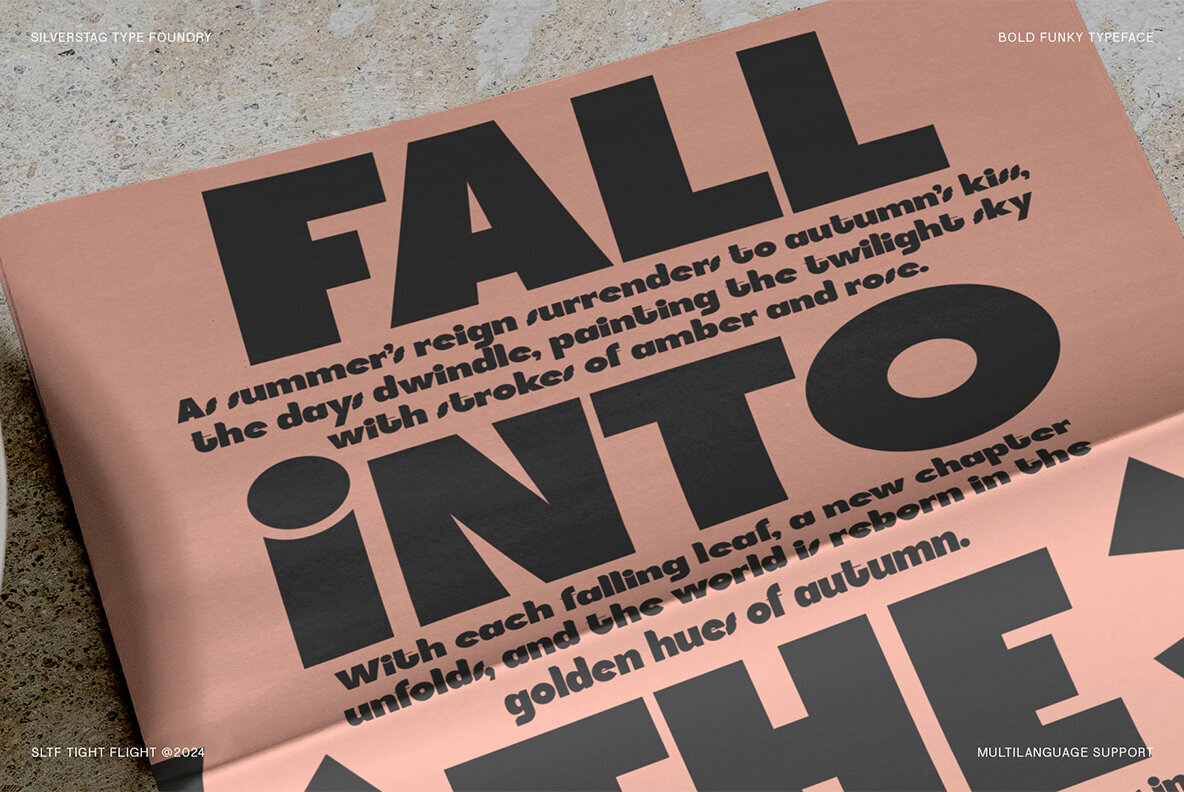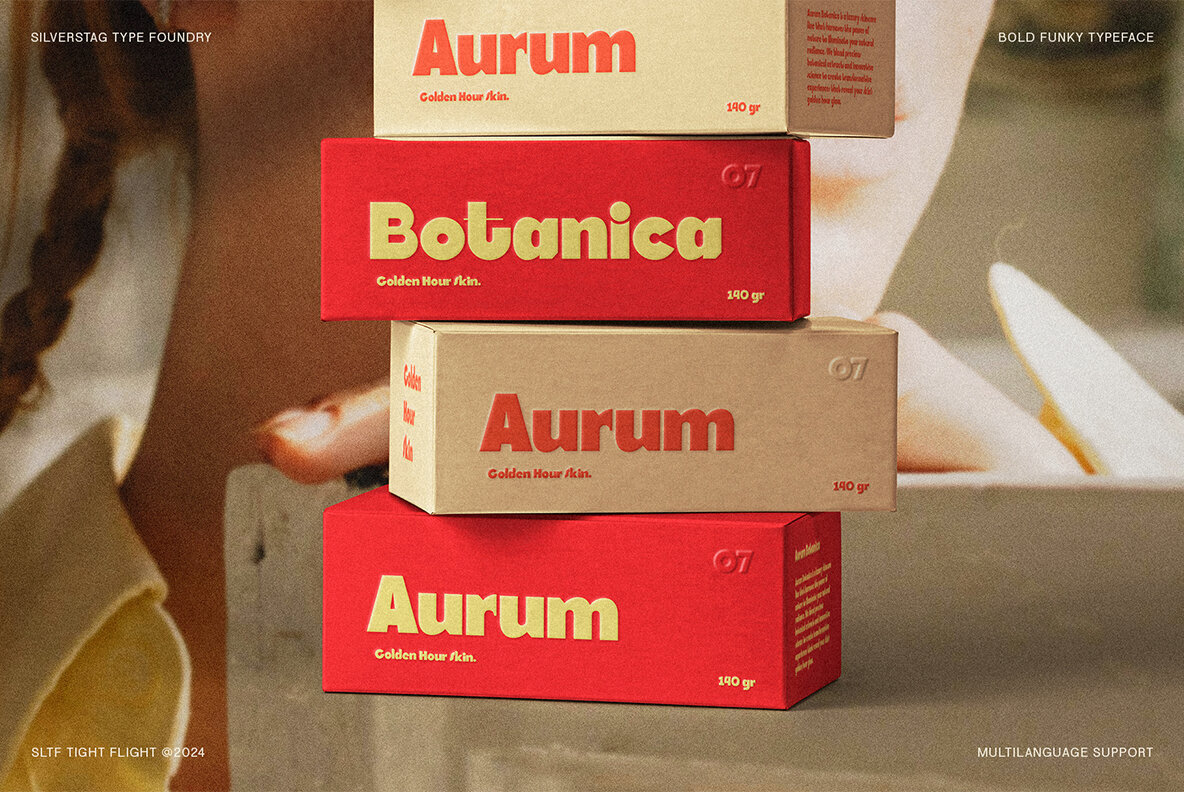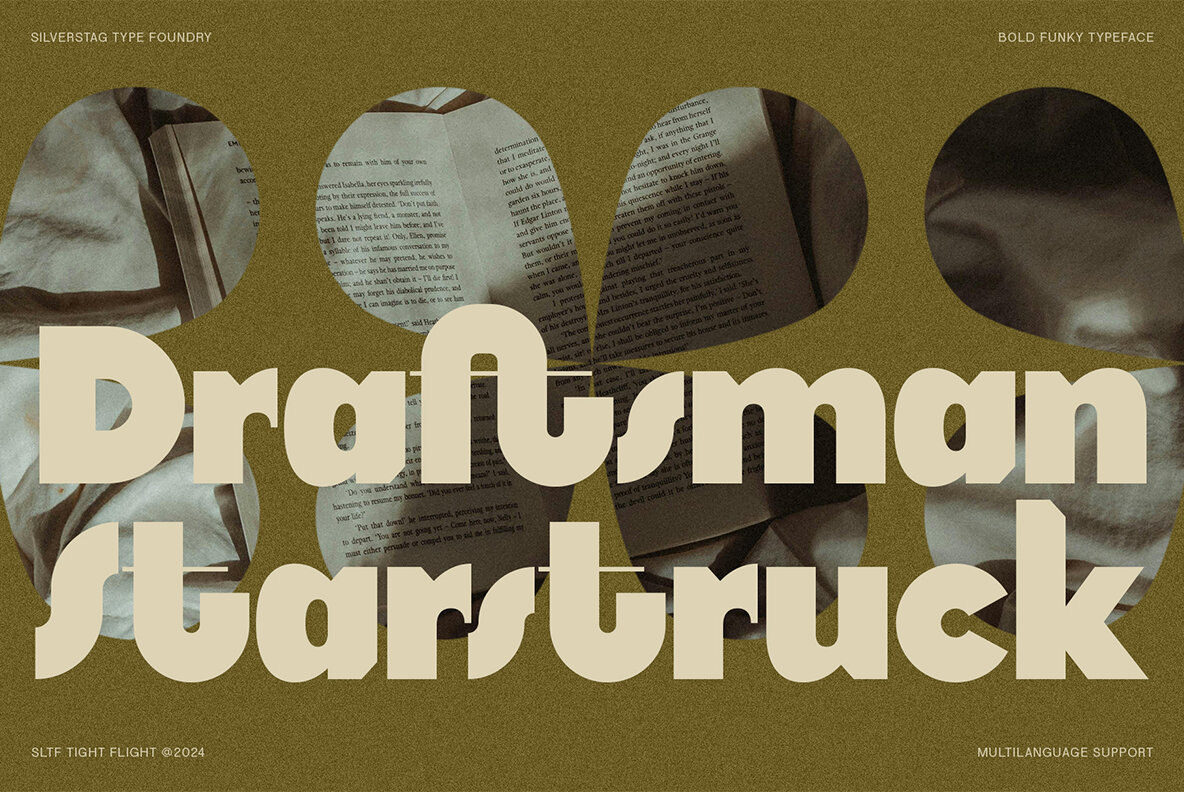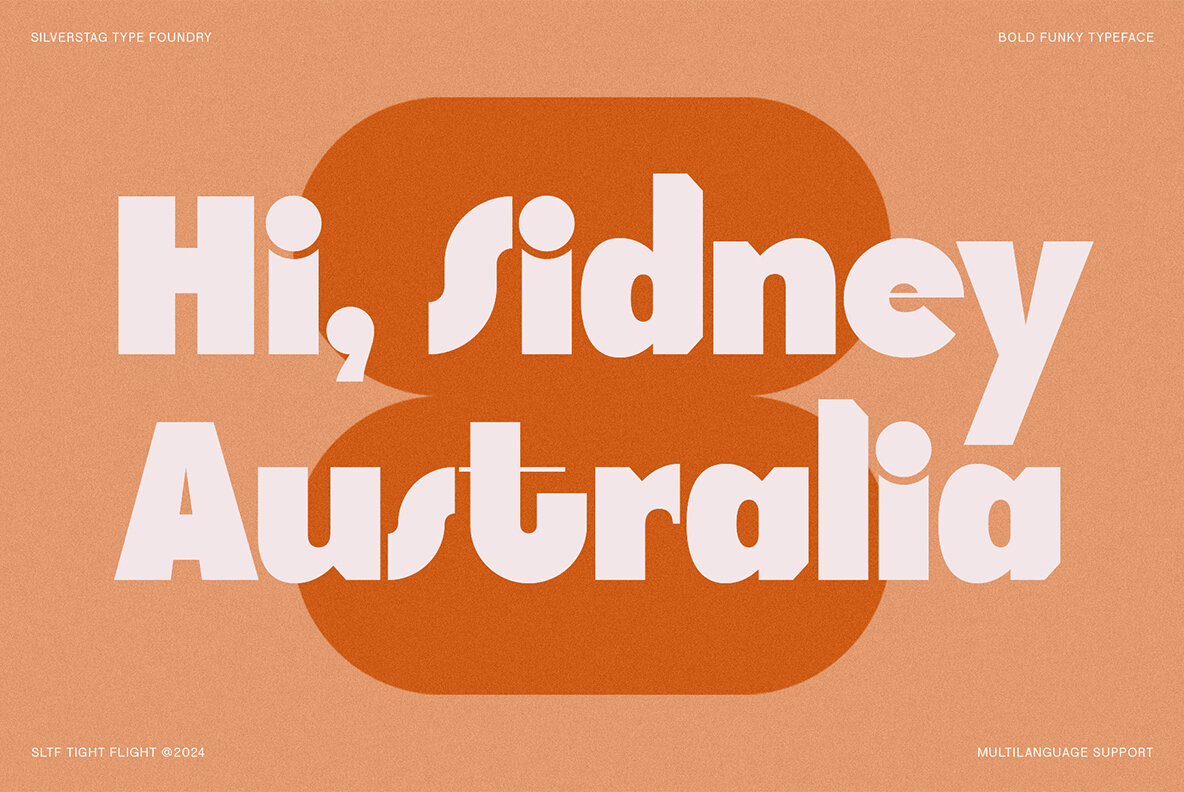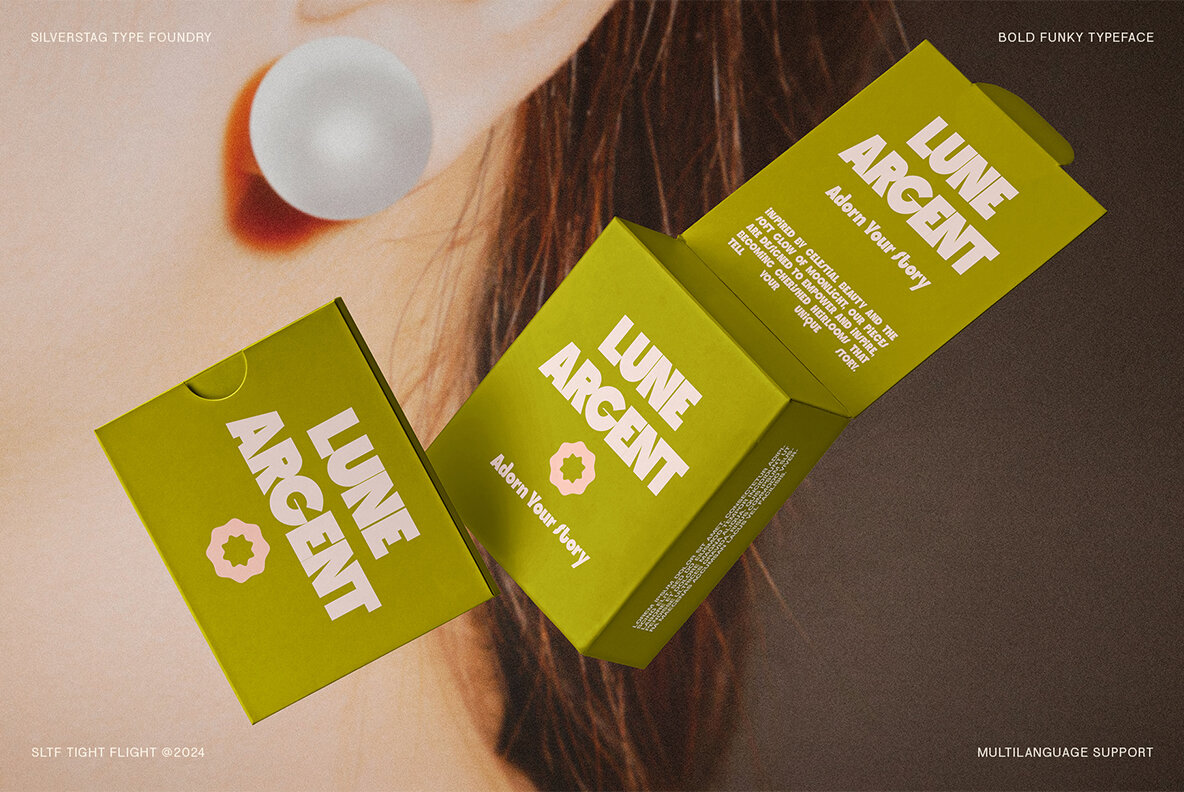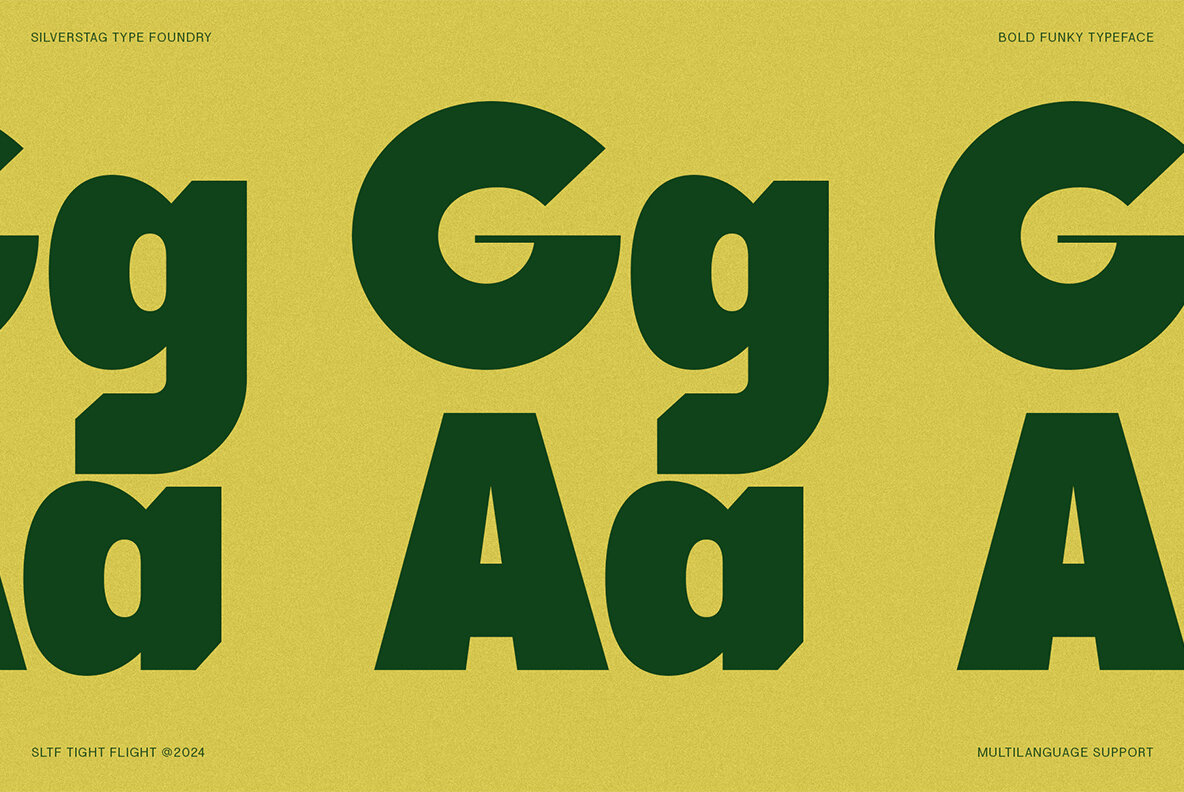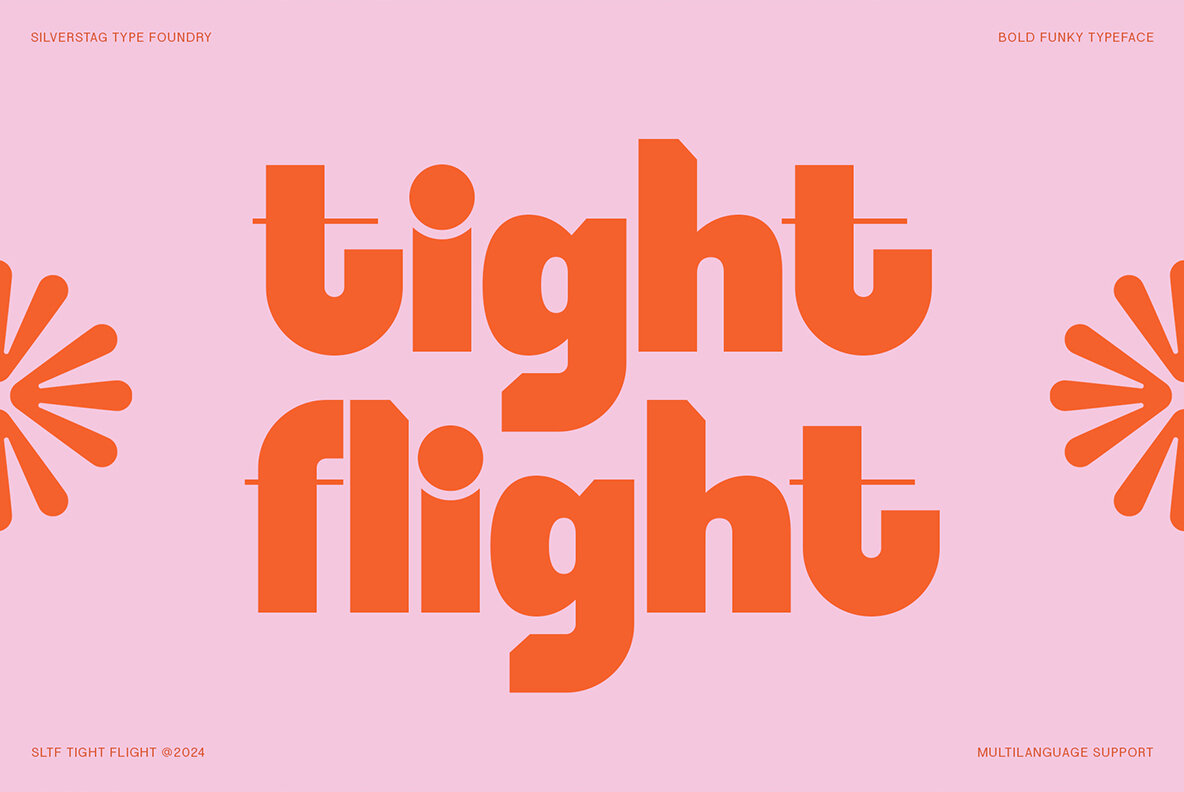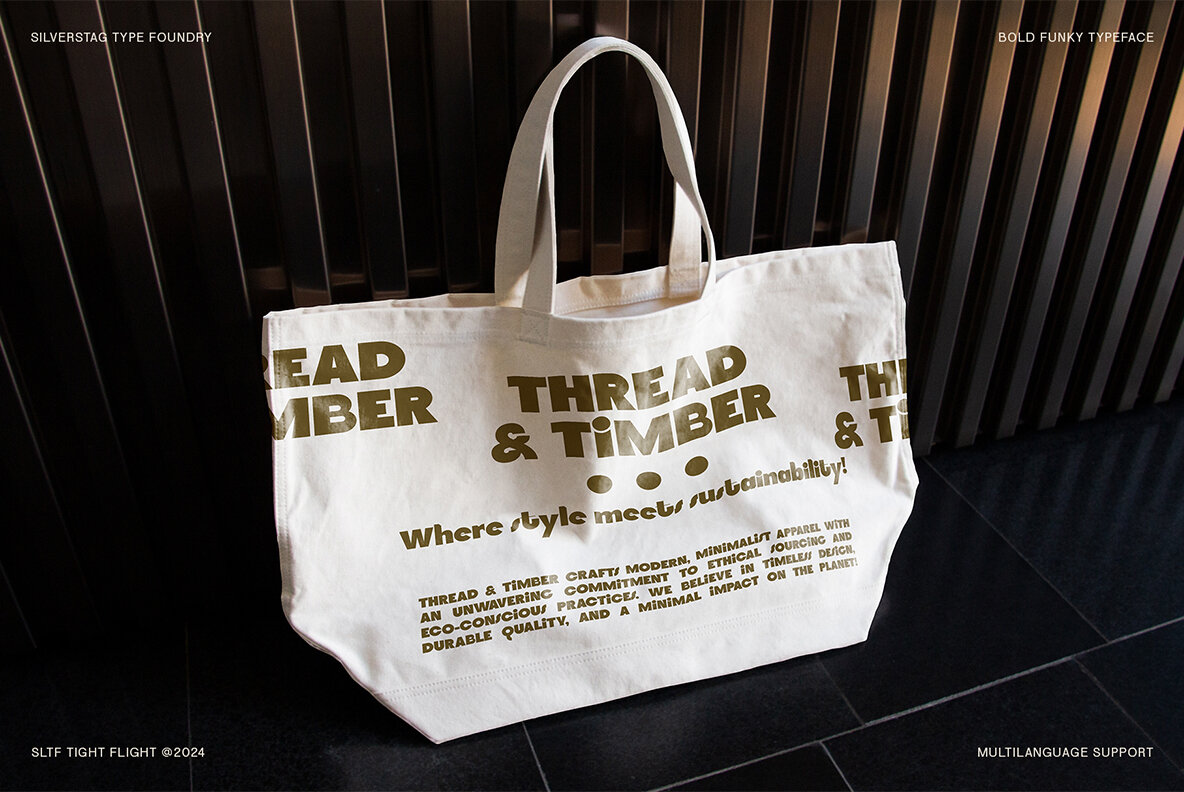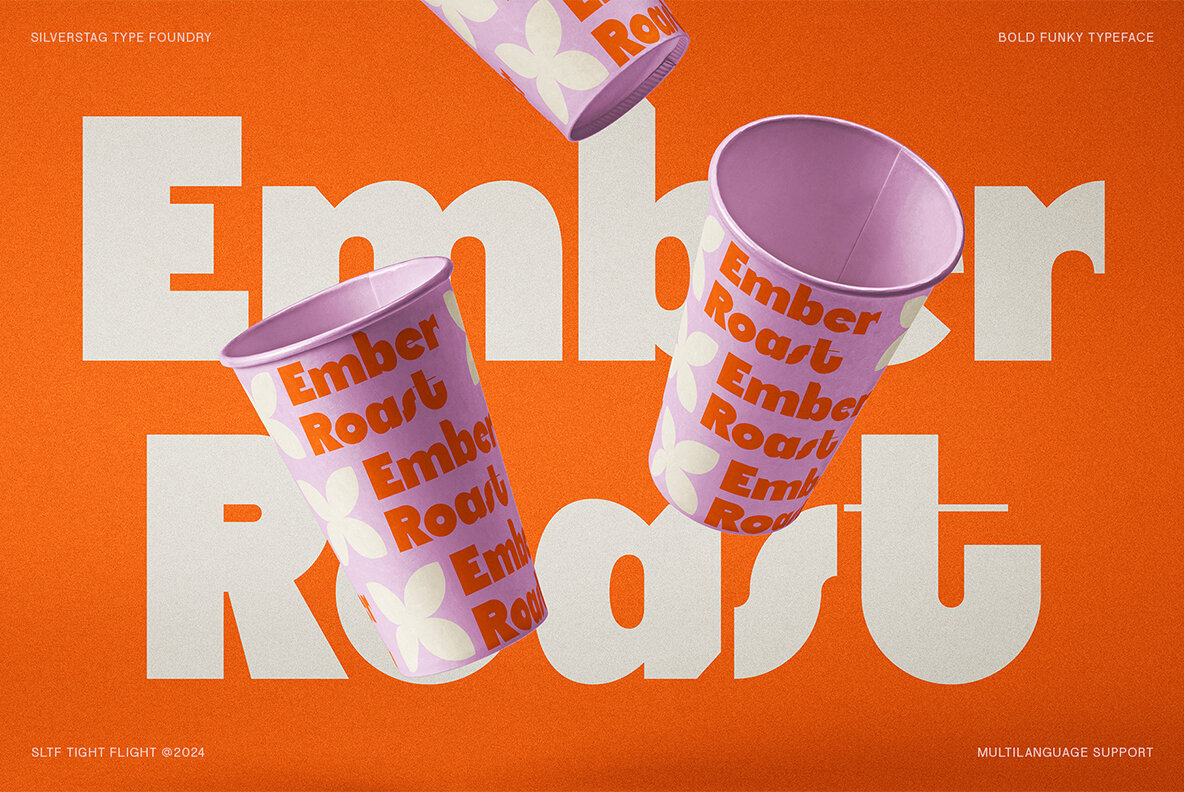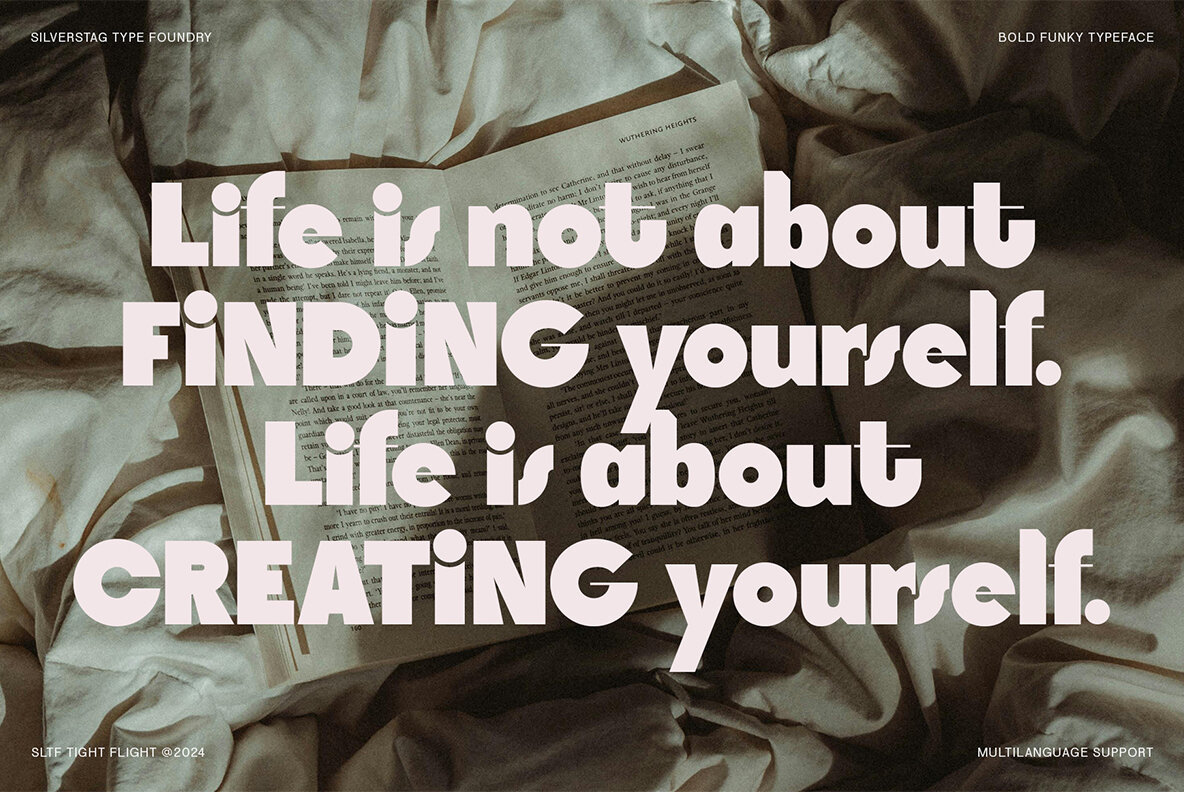
SLTF Tight Flight - A Bold & Funky Sans Serif for Designs That Soar Introducing SLTF Tight Flight, a typeface that's ready to take your designs to new heights. This bold and funky sans serif is bursting with personality, perfect for projects that demand attention and exude a sense of modern cool. With its strong lines, geometric shapes, and unexpected curves, SLTF Tight Flight strikes the perfect balance between boldness and sophistication. Its unique character is sure to make your headlines pop, your logos stand out, and your branding soar. Key Features: Where SLTF Tight Flight shines: Take your designs to new heights with SLTF Tight Flight. This bold and funky sans serif is ready to elevate your projects with its unique blend of personality, versatility, and modern style.